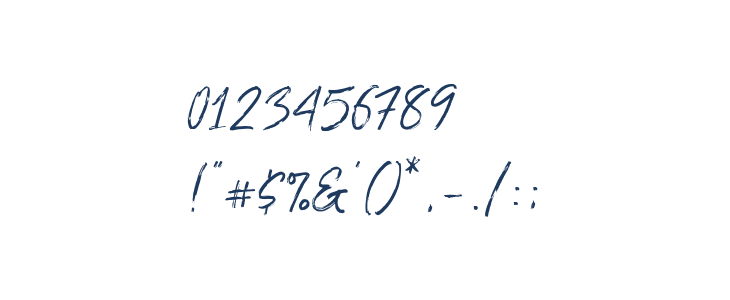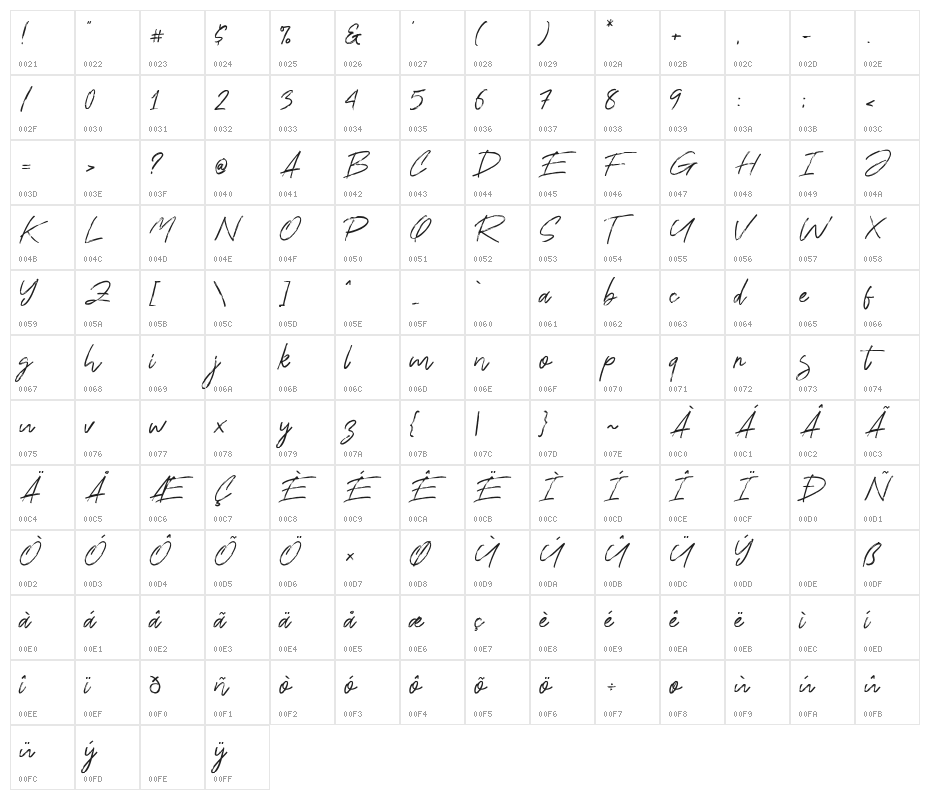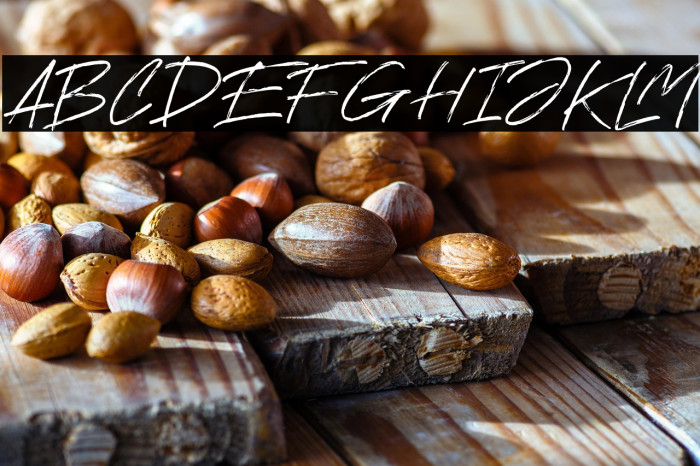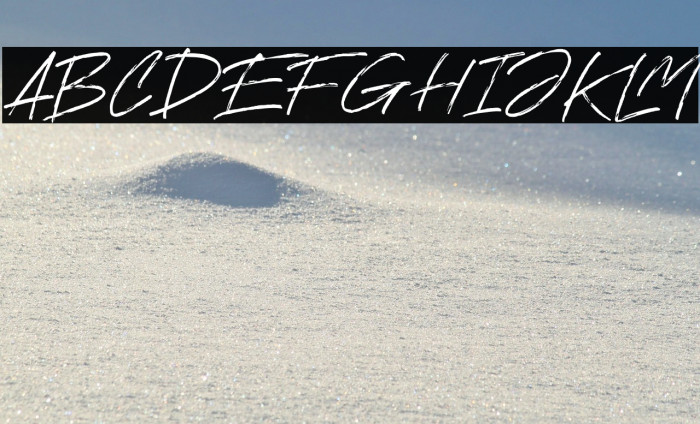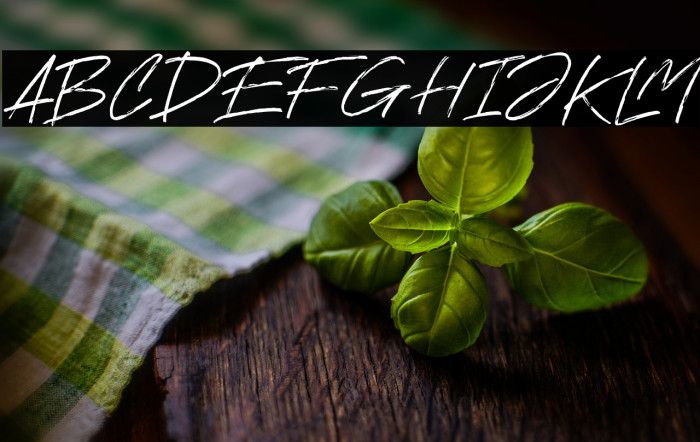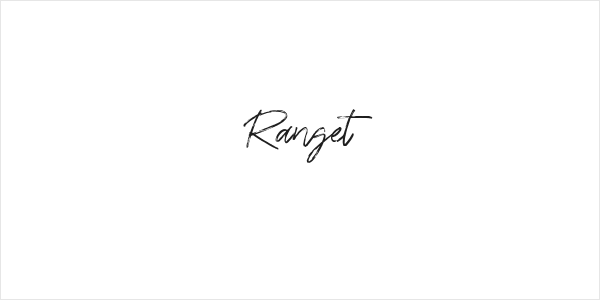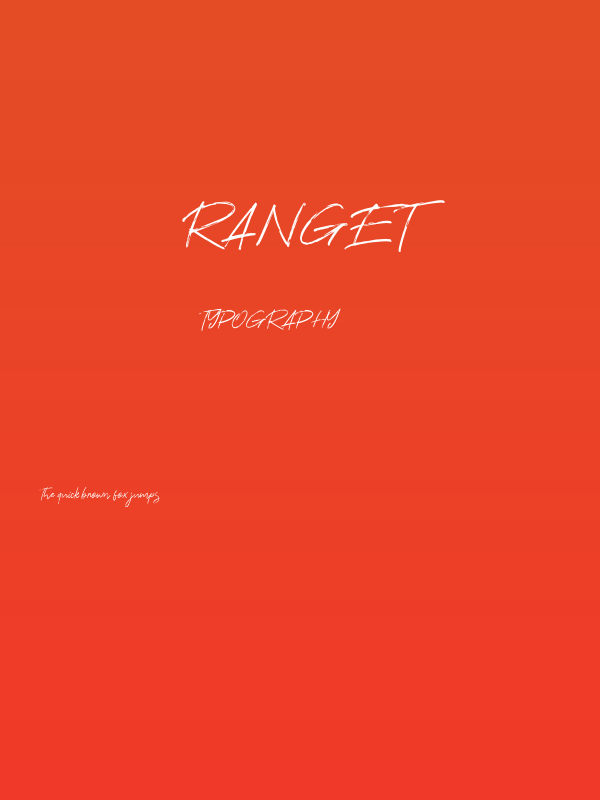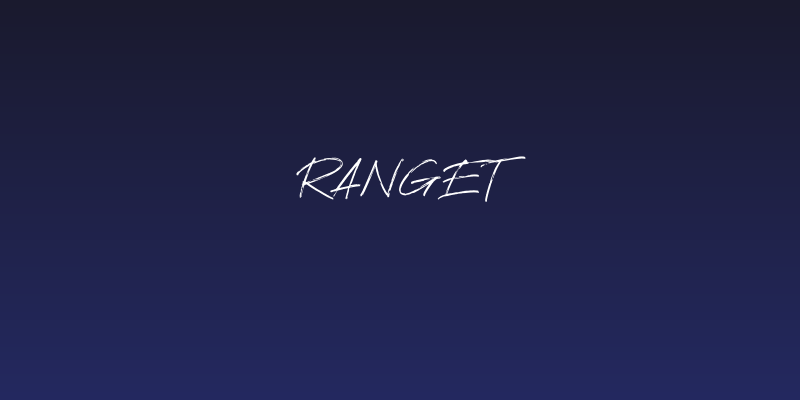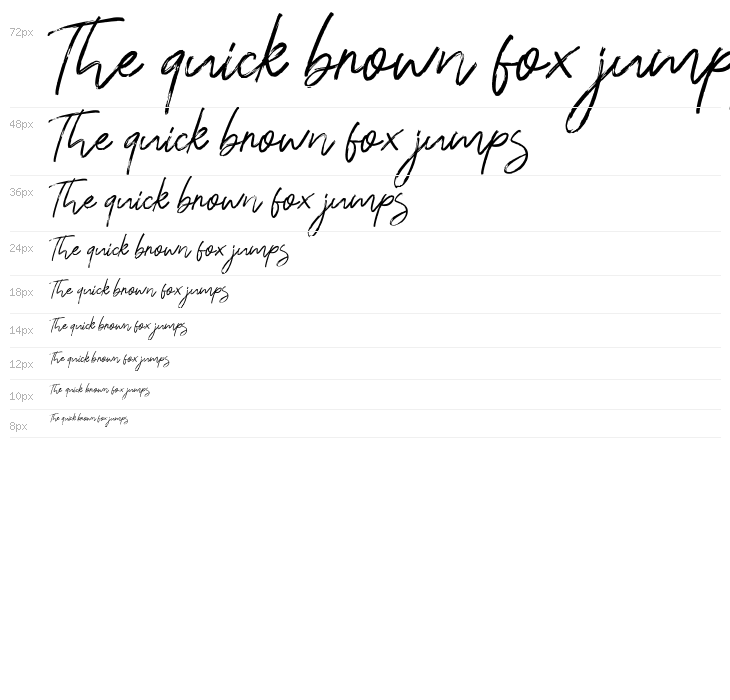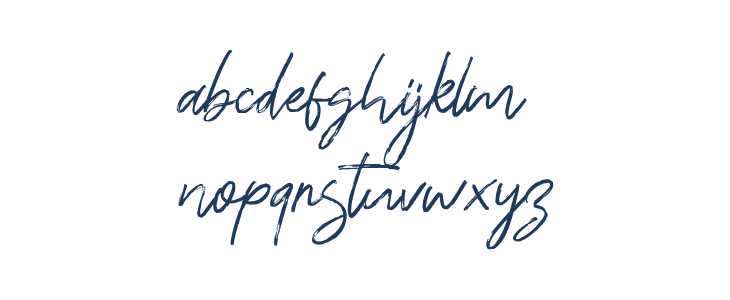
Ranget Font
Ranget Description
This font exudes a dynamic and expressive style, characterized by its handwritten, cursive appearance. The letters are fluid and connected, with a natural, flowing rhythm that mimics authentic handwriting. The strokes are varied in thickness, adding a lively and spontaneous feel. The uppercase letters are bold and slightly slanted, while the lowercase letters maintain a consistent flow, enhancing readability. Numbers and special characters are crafted with the same energetic flair, making them stand out. This font is perfect for projects that require a personal touch, such as invitations, greeting cards, or branding materials that aim to convey creativity and individuality.